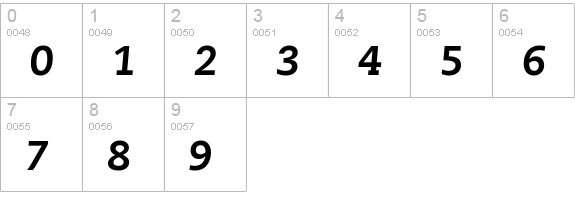
Monologue Black SSi Black Italic Font Details
Monologue Black SSi Black Italic is a maximum-weight, dramatic, italic variant in the Monologue typeface family \xE2\x80\x94 well suited to maximum-impact headlines, posters, and packaging.
Monologue Black SSi Black Italic font is a bold and elegant typeface that exudes sophistication and modernity. Its sleek and stylish design makes it a perfect choice for creating impactful headlines, titles, and branding materials. The italicized version of the font adds a touch of flair and dynamism to any design project. What makes Monologue Black SSi Black Italic font even more appealing is that it is available for free download at FontsMarket.com. This means that you can easily access this versatile and eye-catching font without any cost, making it a valuable addition to your font collection. Whether you're working on a graphic design project, a website, or any other creative endeavor, Monologue Black SSi Black Italic font will help you make a bold statement and leave a lasting impression.